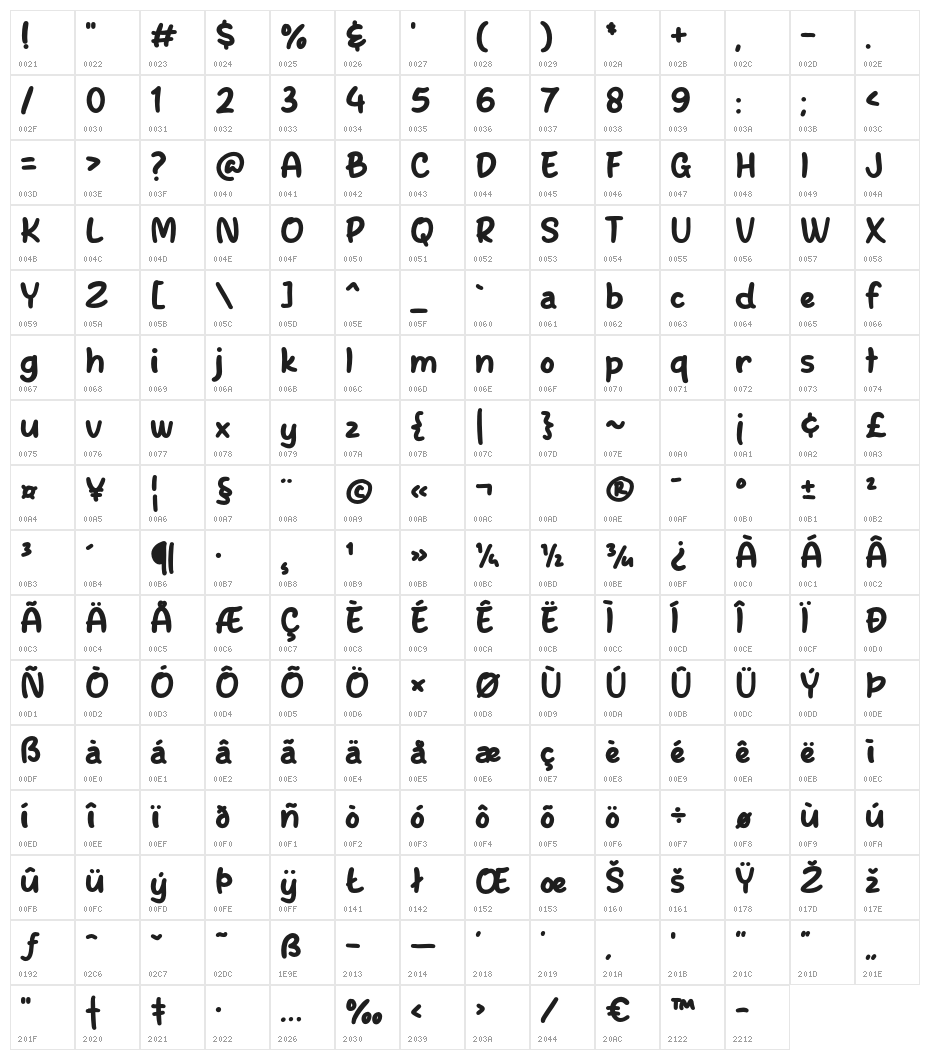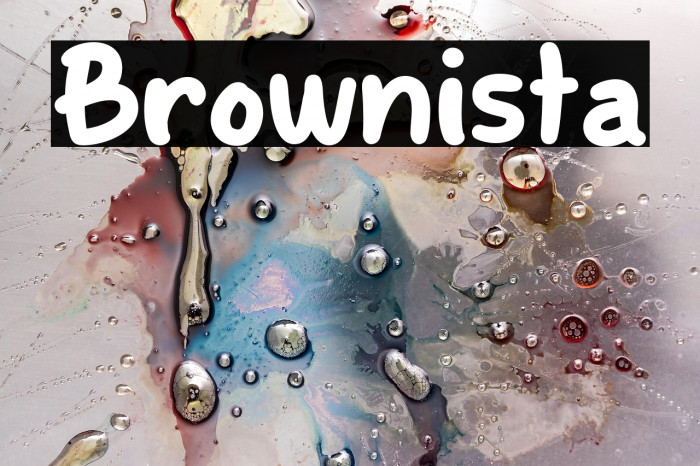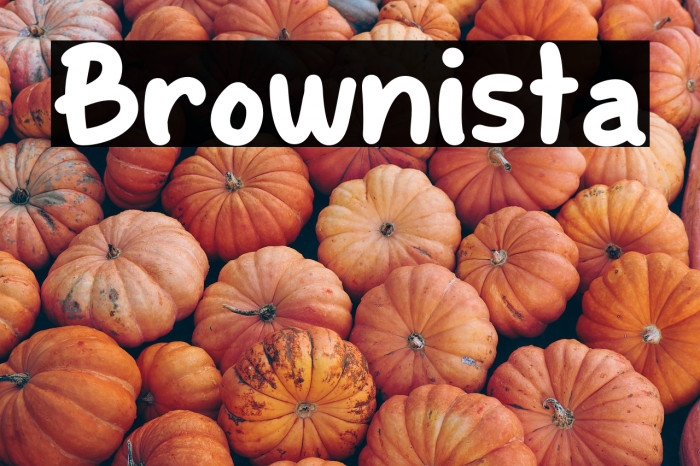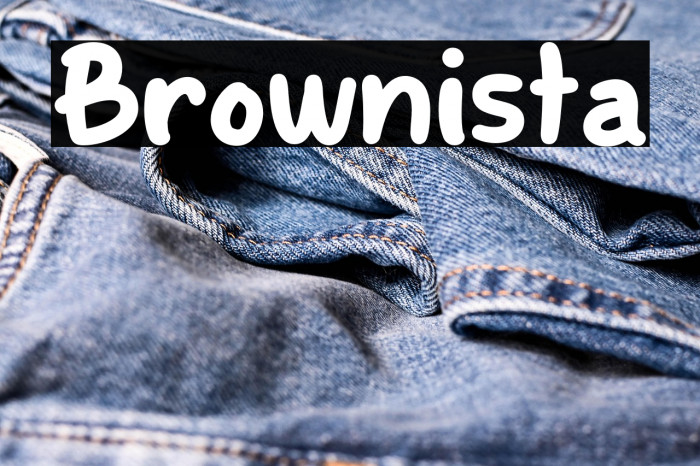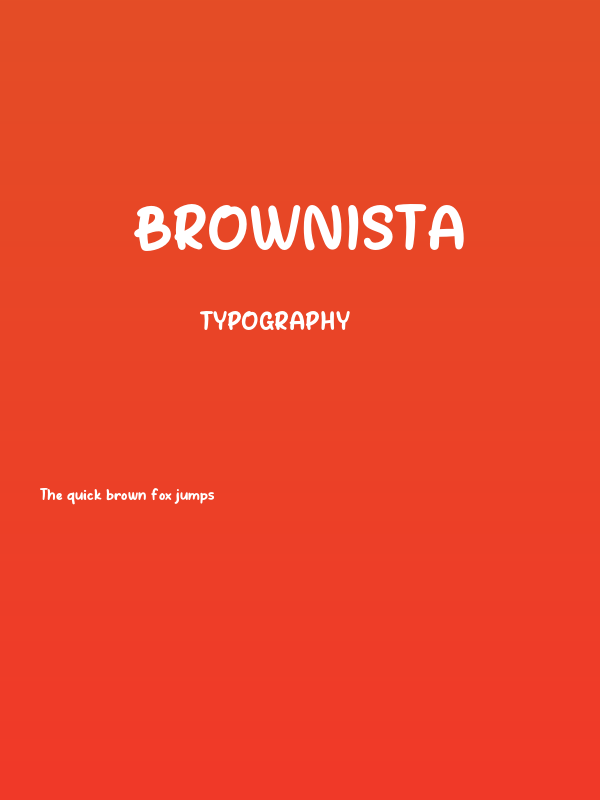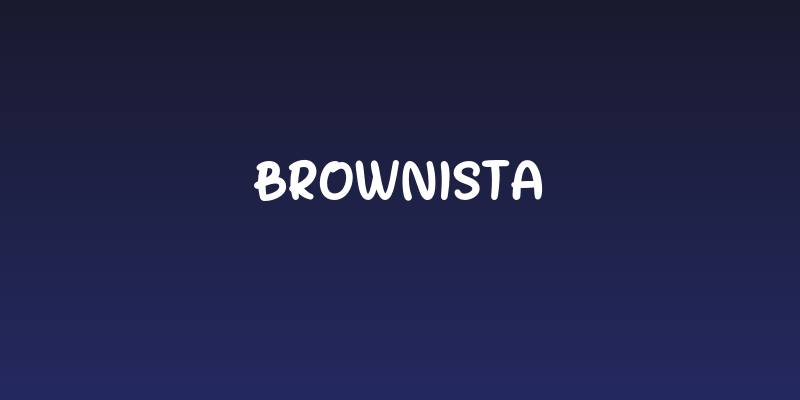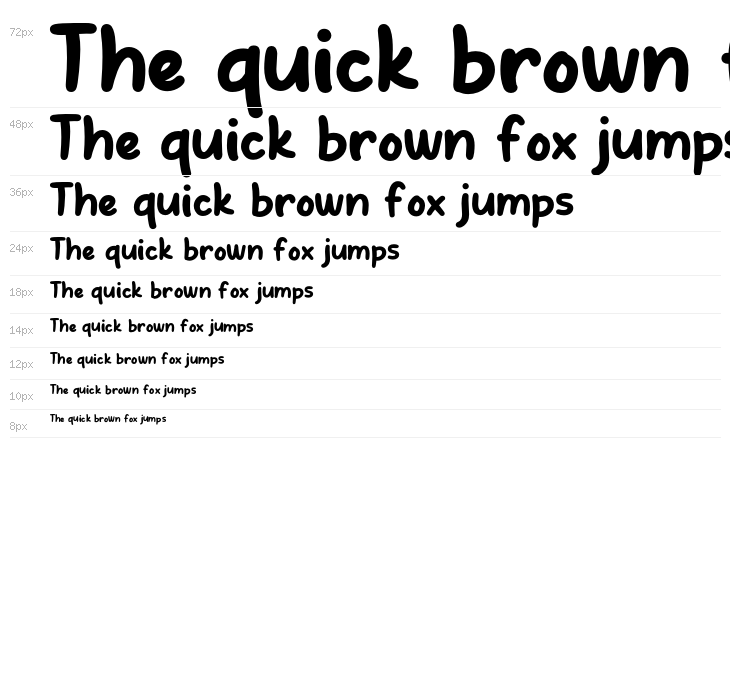
Brownista Font
Brownista Description
This playful and bold font features rounded, thick strokes that give it a friendly and approachable appearance. The characters are slightly irregular, adding a hand-drawn, whimsical feel. The uppercase letters are robust and stand out, while the lowercase letters maintain a consistent style that complements the uppercase. Numbers and special characters are designed with the same playful aesthetic, ensuring a cohesive look across all text. The font's overall style is casual and fun, making it suitable for projects that require a touch of personality and creativity.
| Proposed Projects | Ideal for children's books, playful branding, event invitations, and social media graphics. |